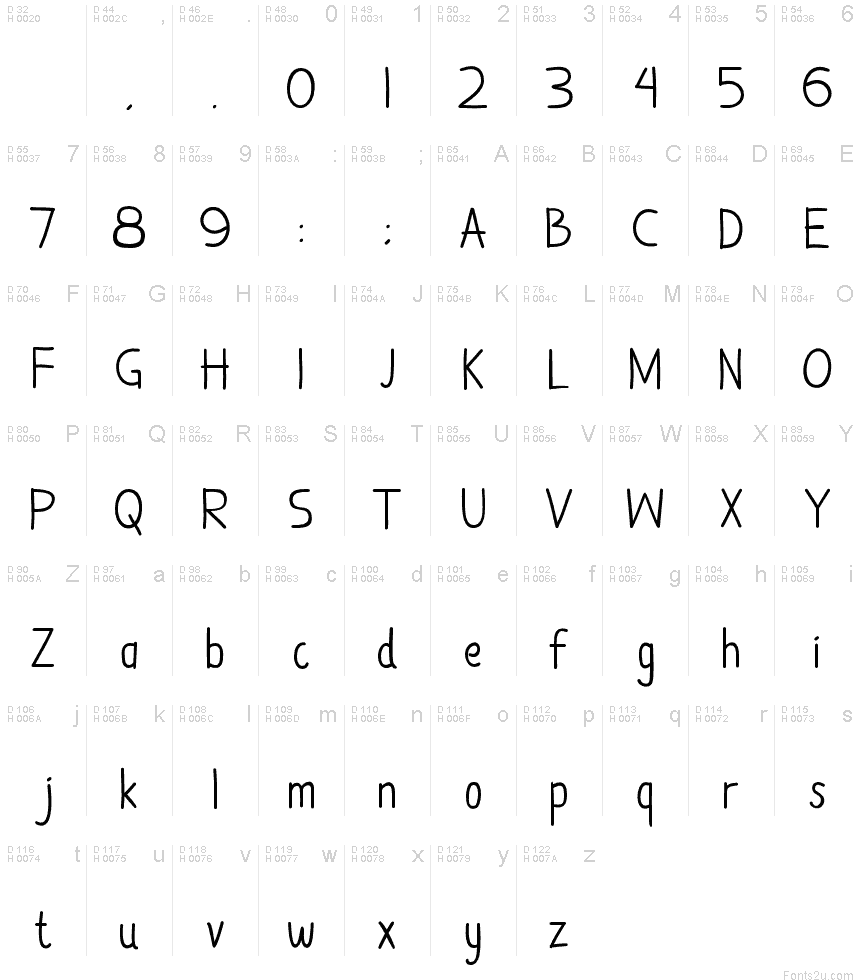
Damai Kpk Polri is a free handwritten font with tall, loosely drawn letters and an airy monoline build. Stroke widths shift slightly, and the uneven curves keep the forms looking personal rather than typeset. Its narrow proportions are especially distinctive.
Personal stationery is its most convincing setting, where the slim, informal lettering gives names and brief messages the look of quick marker writing. That same upright looseness also suits casual event posters, classroom materials, and friendly food packaging with a handmade theme.
Damai Kpk Polri